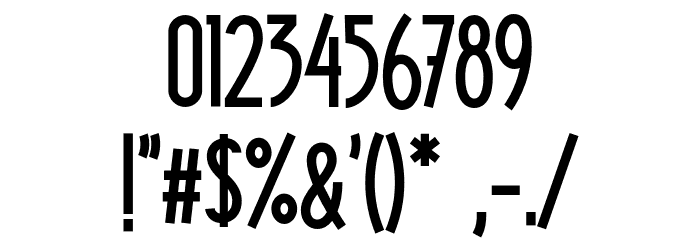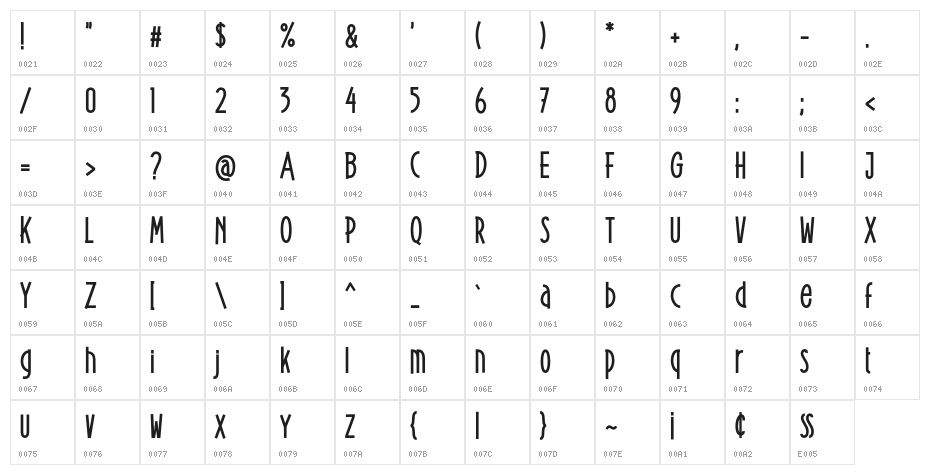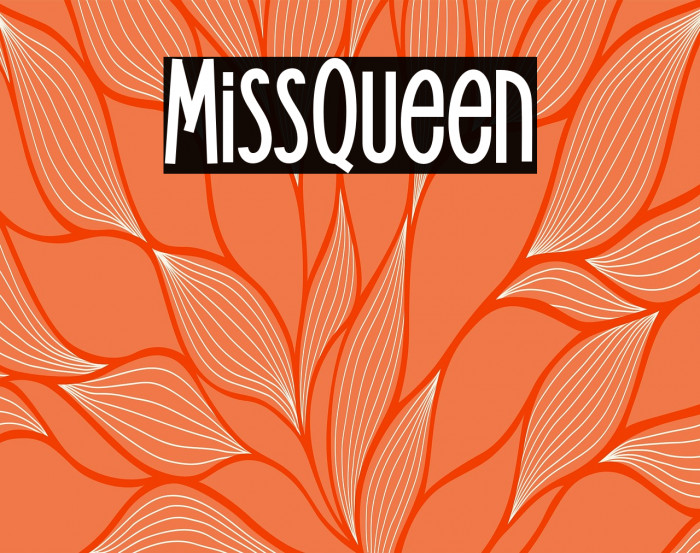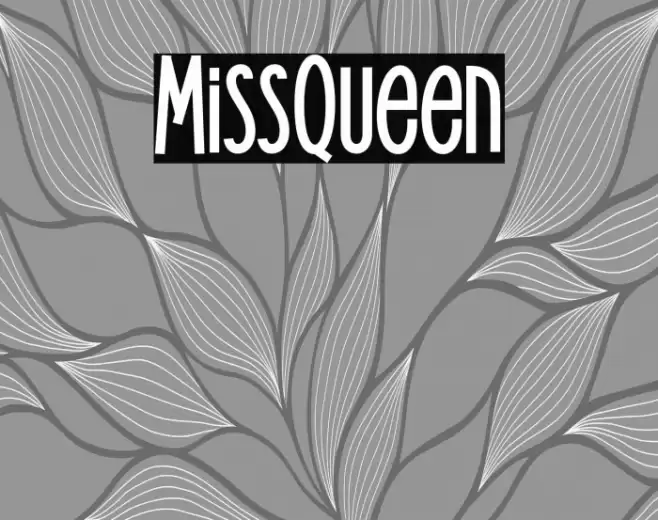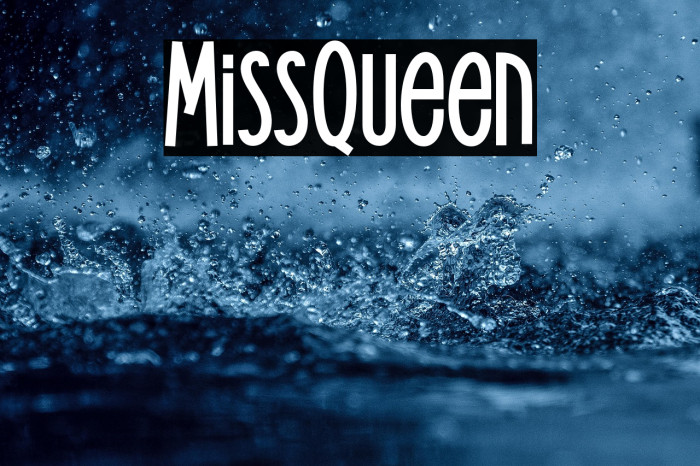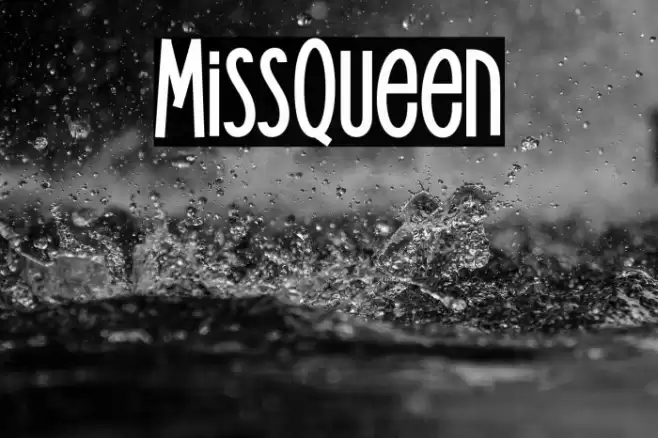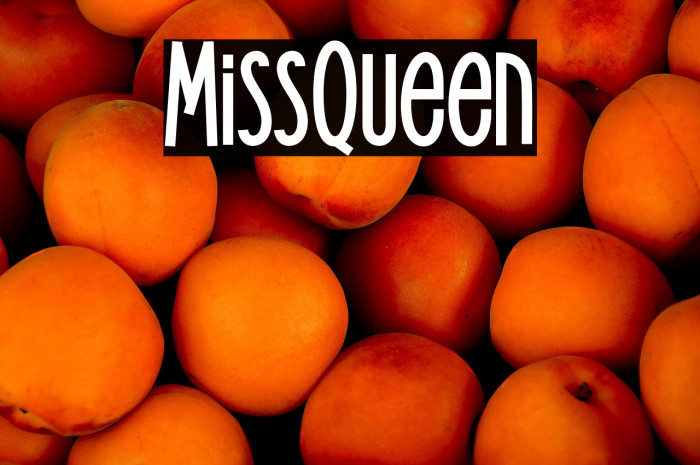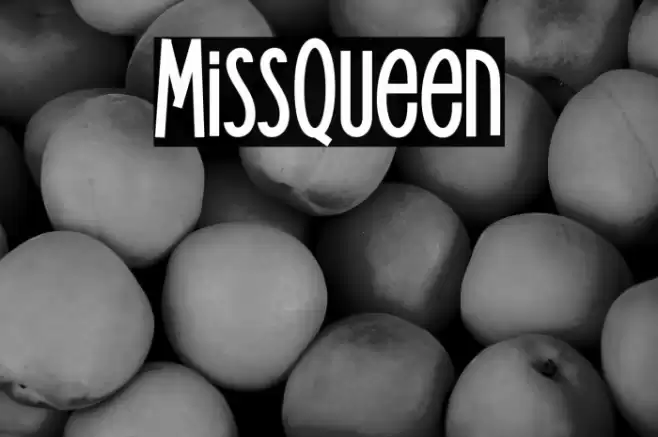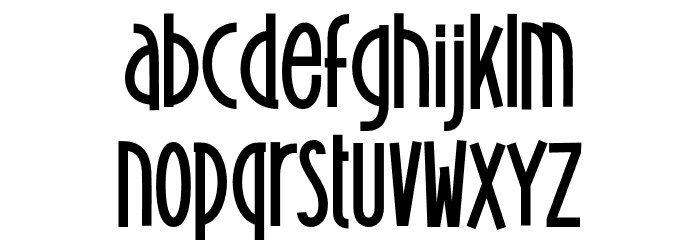
MissQueen Font
MissQueen Description
This font features a tall, narrow design with a distinctively modern and playful appearance. The characters are elongated with a slight curve, giving them a unique and stylish flair. The uppercase letters are particularly striking, with a bold presence that commands attention. The lowercase letters maintain the same narrow structure, ensuring consistency across the typeface. Numbers and special characters are designed to match the overall aesthetic, making this font versatile for various uses. The clean lines and smooth curves contribute to its contemporary feel, making it suitable for creative and dynamic projects.
| Proposed Projects | Ideal for branding, posters, headlines, and creative design projects. |